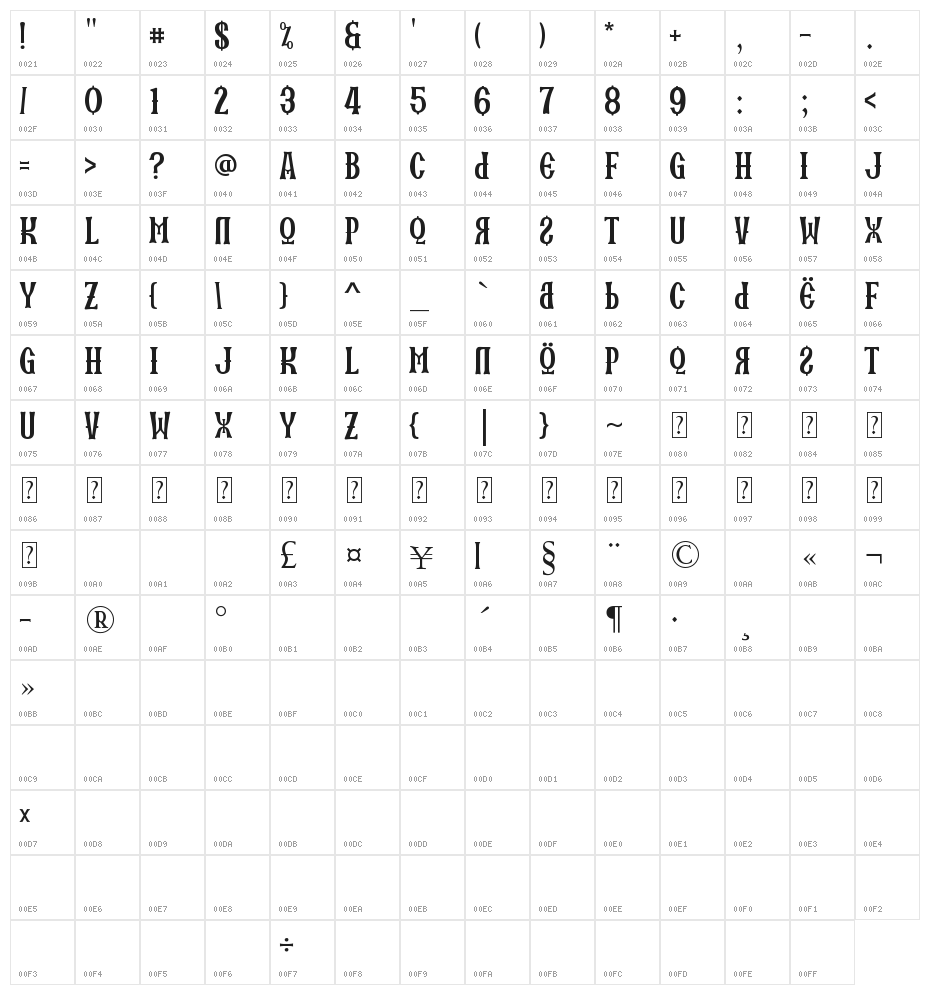
SKARTANICK Font
SKARTANICK Description
This font features a bold and decorative style with a strong presence. The characters are uniquely designed with a mix of sharp and rounded edges, giving it a distinct and eye-catching appearance. The uppercase letters exhibit a playful yet structured form, while the lowercase letters maintain a consistent style with slight variations in stroke width. The numerals are bold and easily readable, complementing the overall aesthetic. Special characters are creatively integrated, enhancing the font's versatility. This font is ideal for projects that require a bold statement and a touch of creativity.
| Proposed Projects | Ideal for posters, branding, headlines, and any design project that requires a bold and creative touch. |